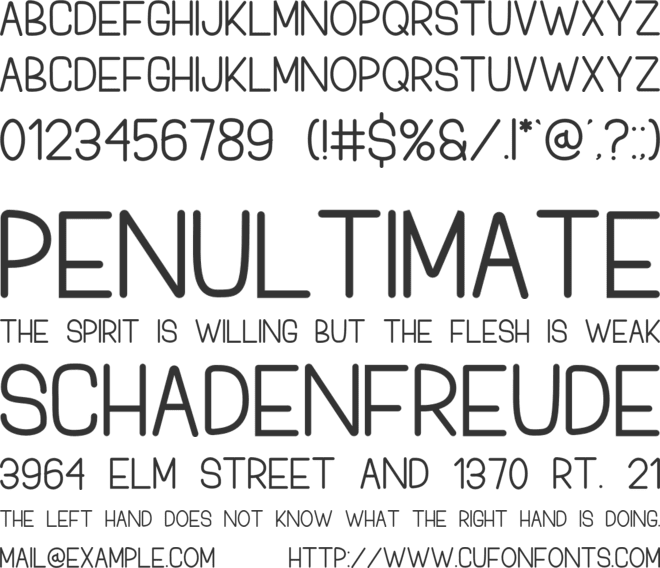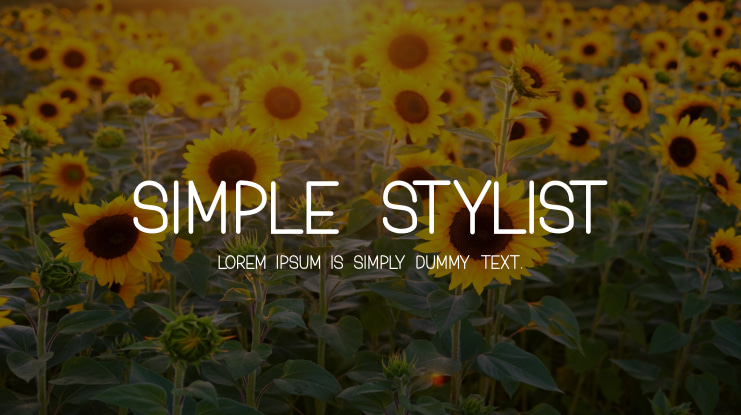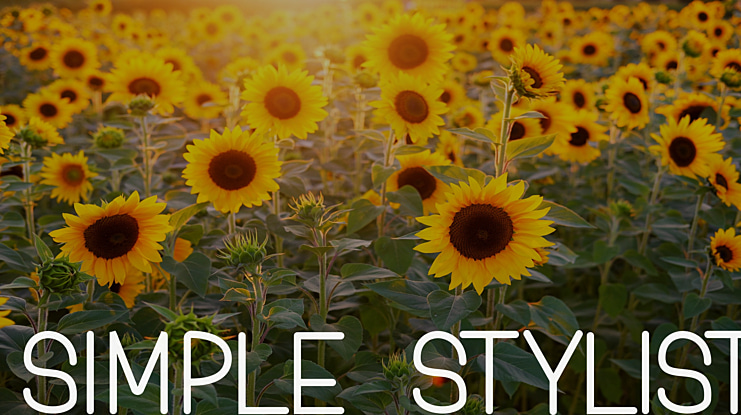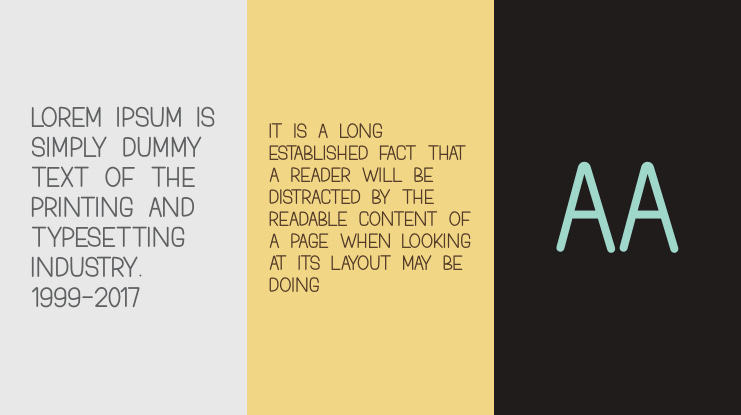
Simple Stylist Font
Simple Stylist is a cool and modern sans-Serif font. Whether you’re using it for crafts, digital design, presentations, or making greeting cards, this font has the potential to become your favorite go-to font, no matter the occasion.